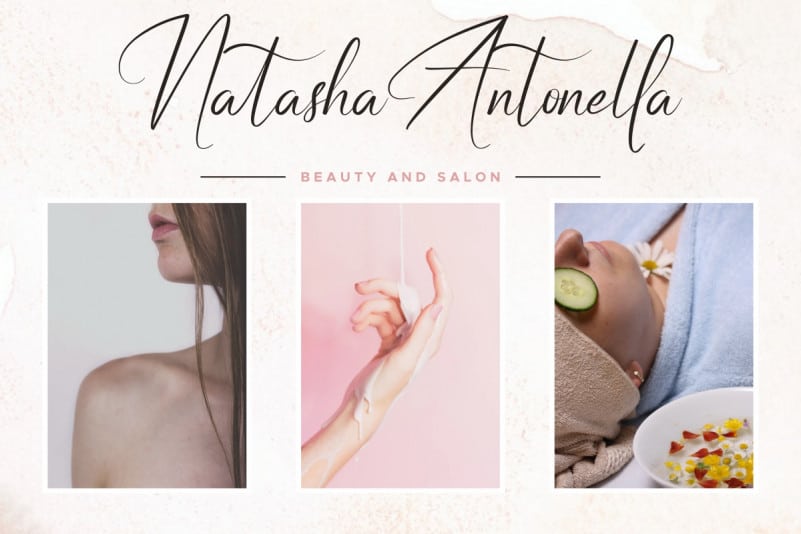
Rellative Calligraphy Font
Rellative Calligraphy Font is a beautiful signature brush script Font with an exclusive original style. The theme of this font are glamour, signature, modern, elegant, luxury, handwritten, classic and simple lettering.